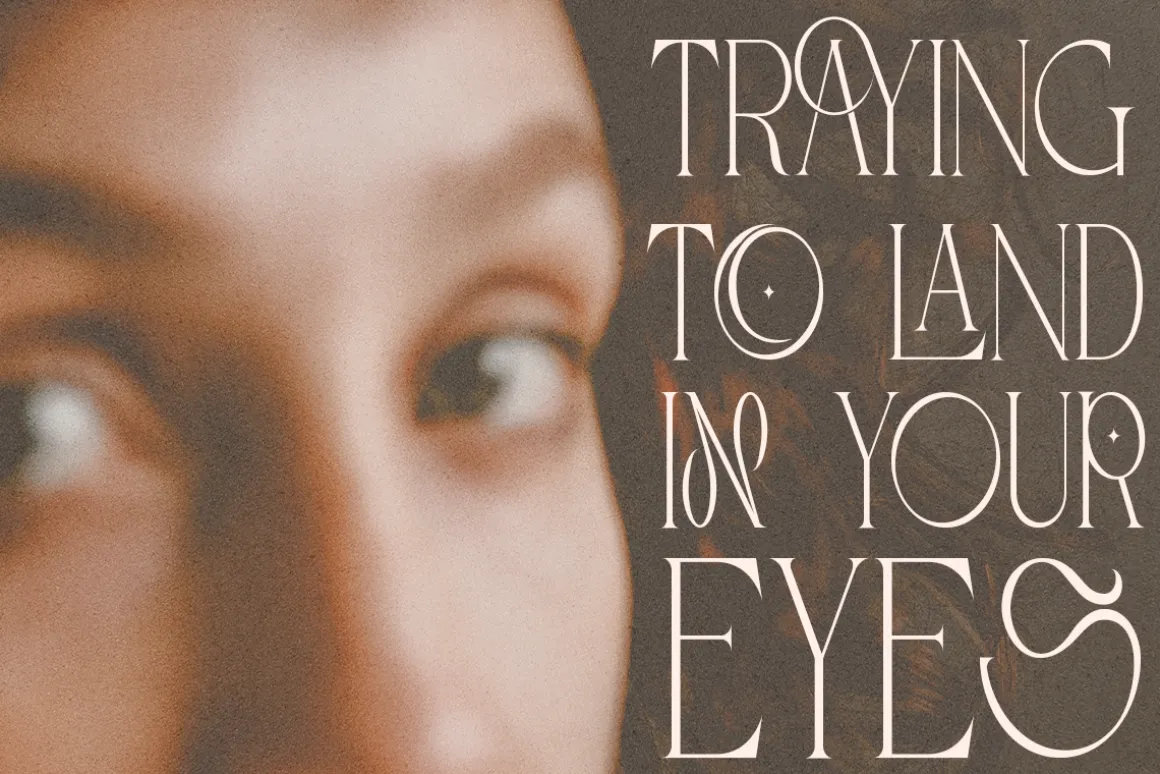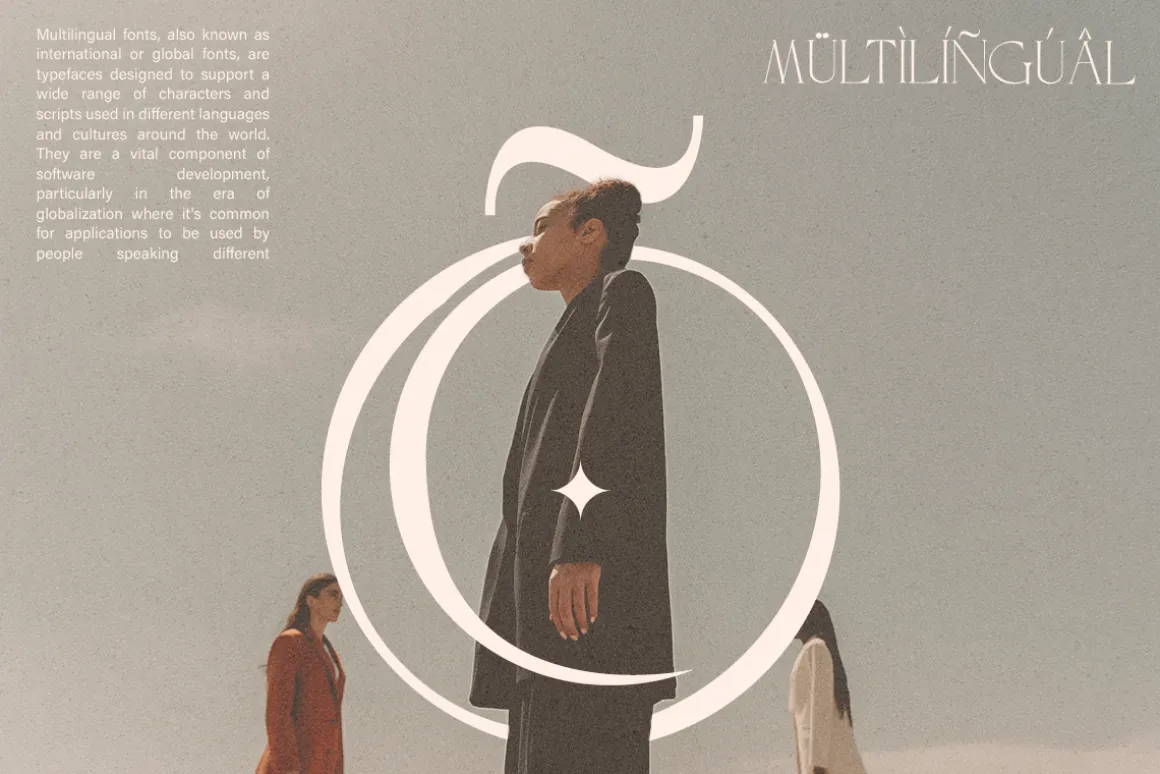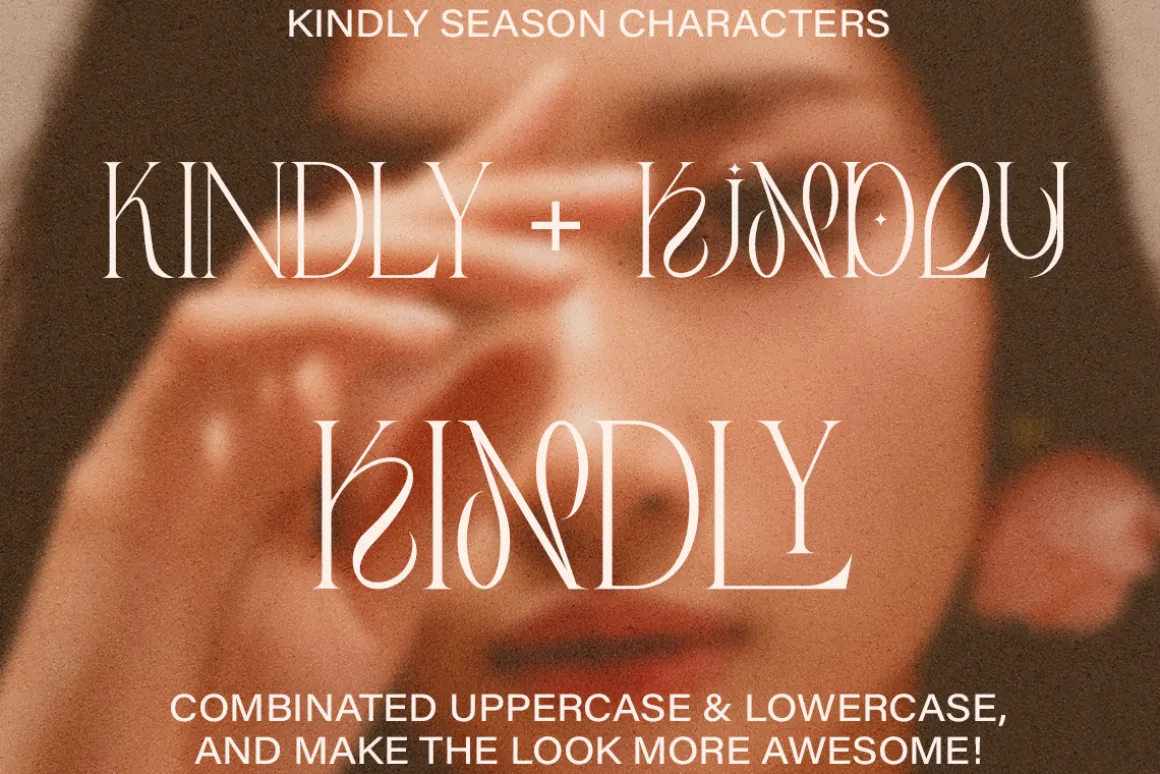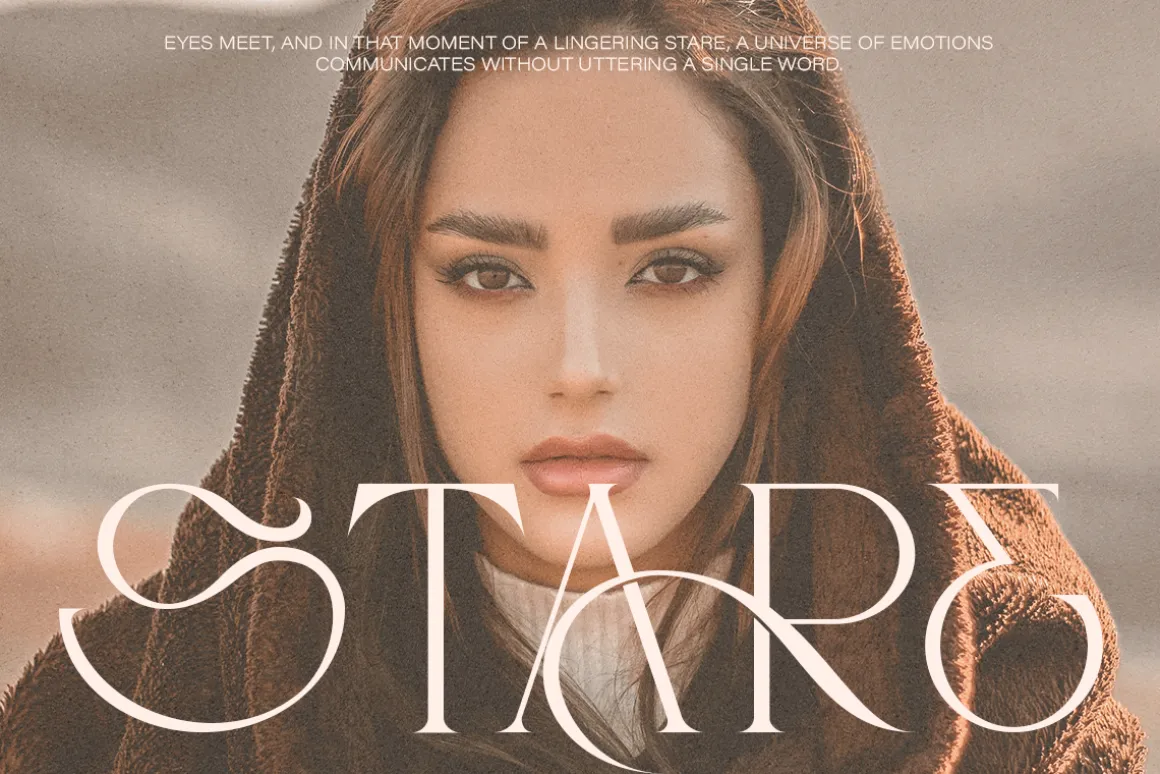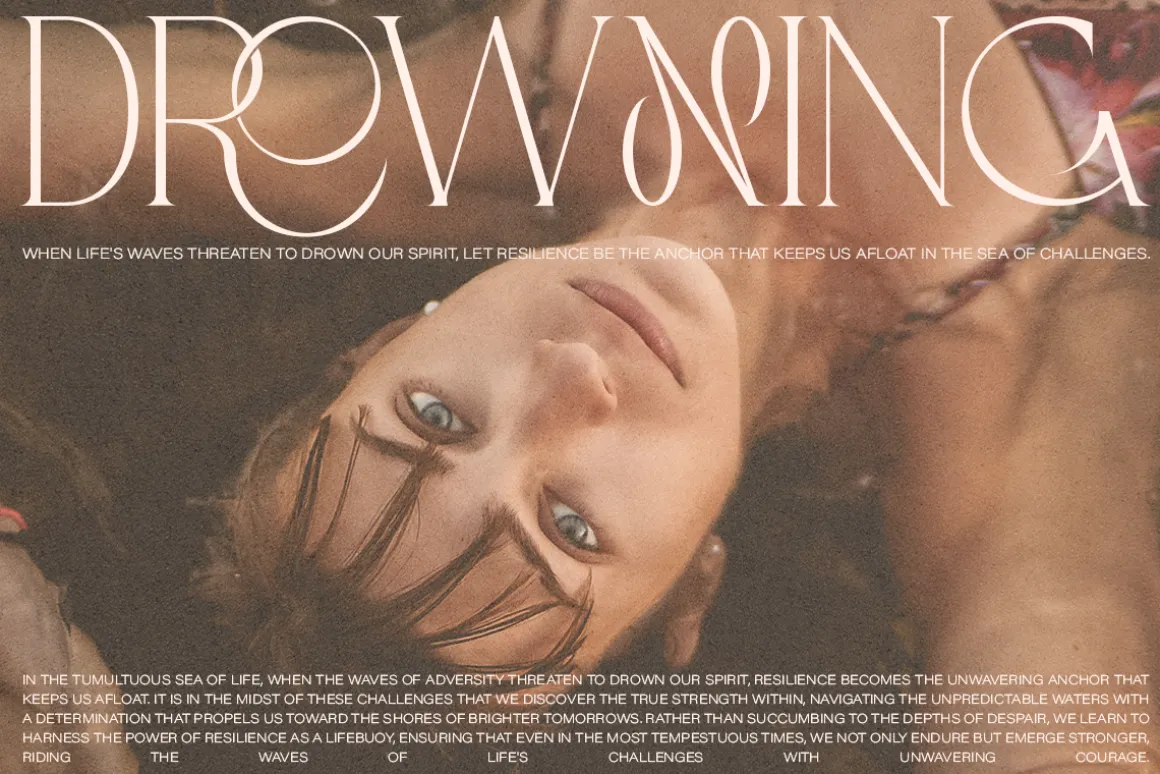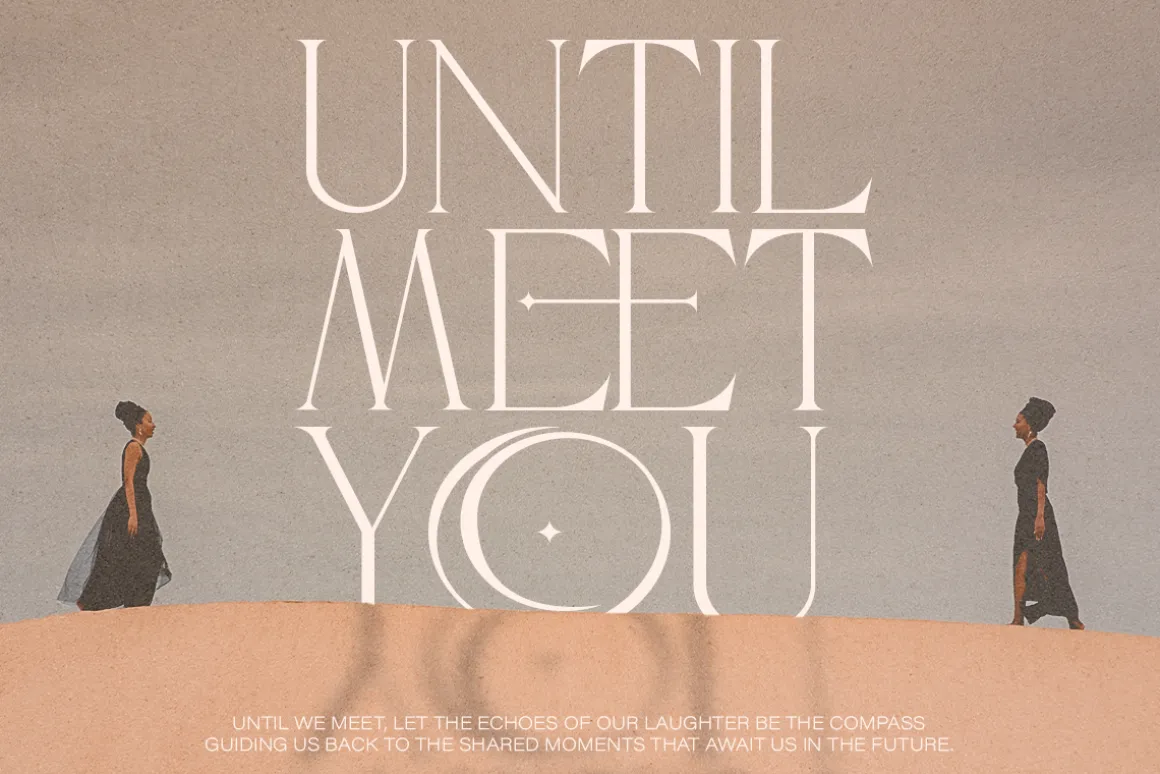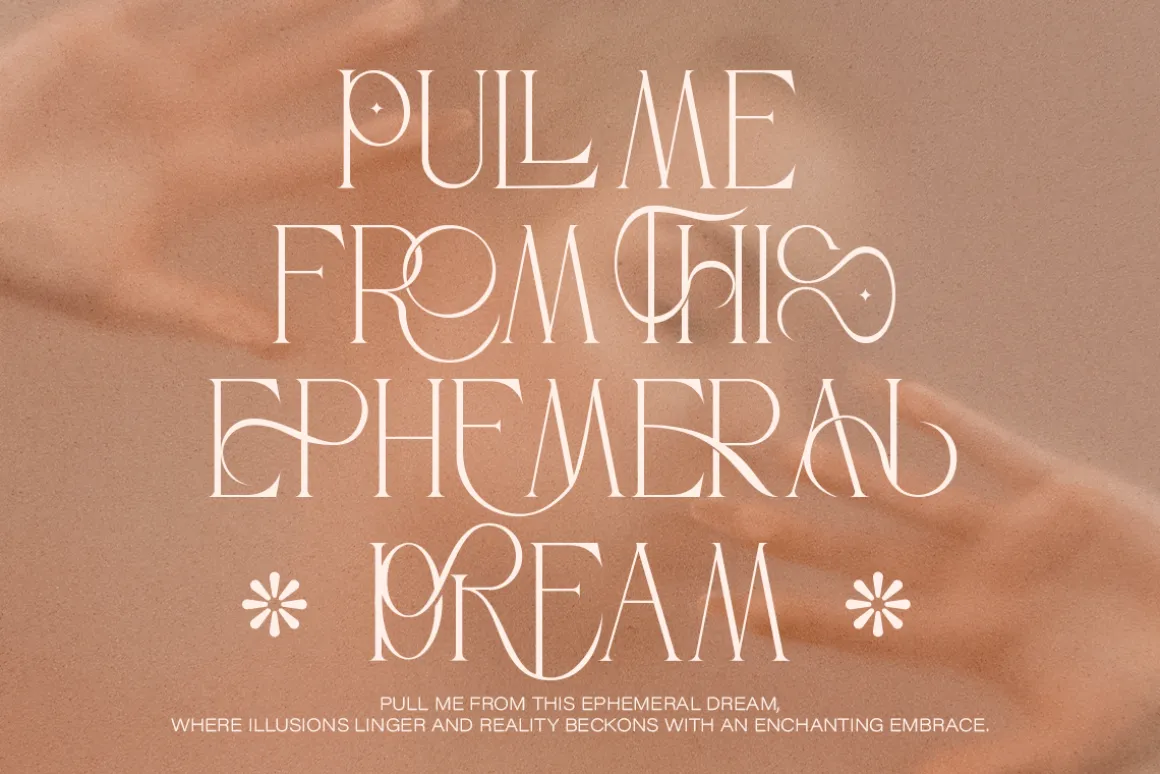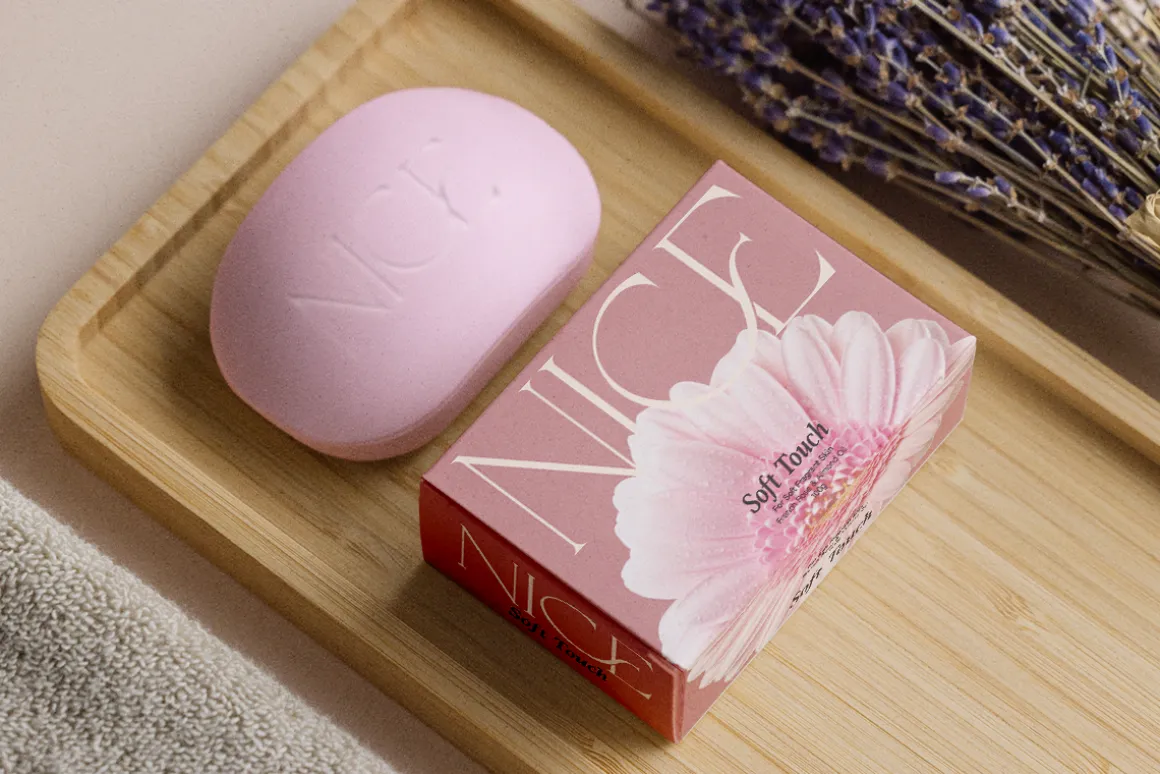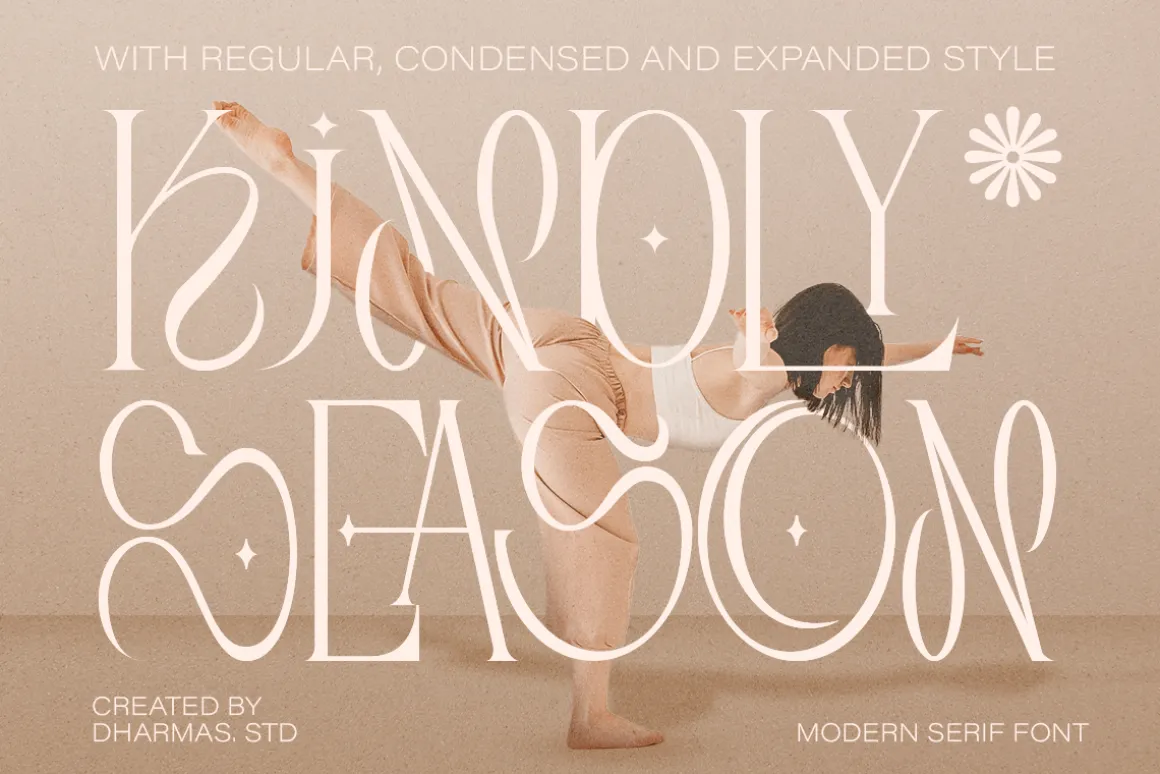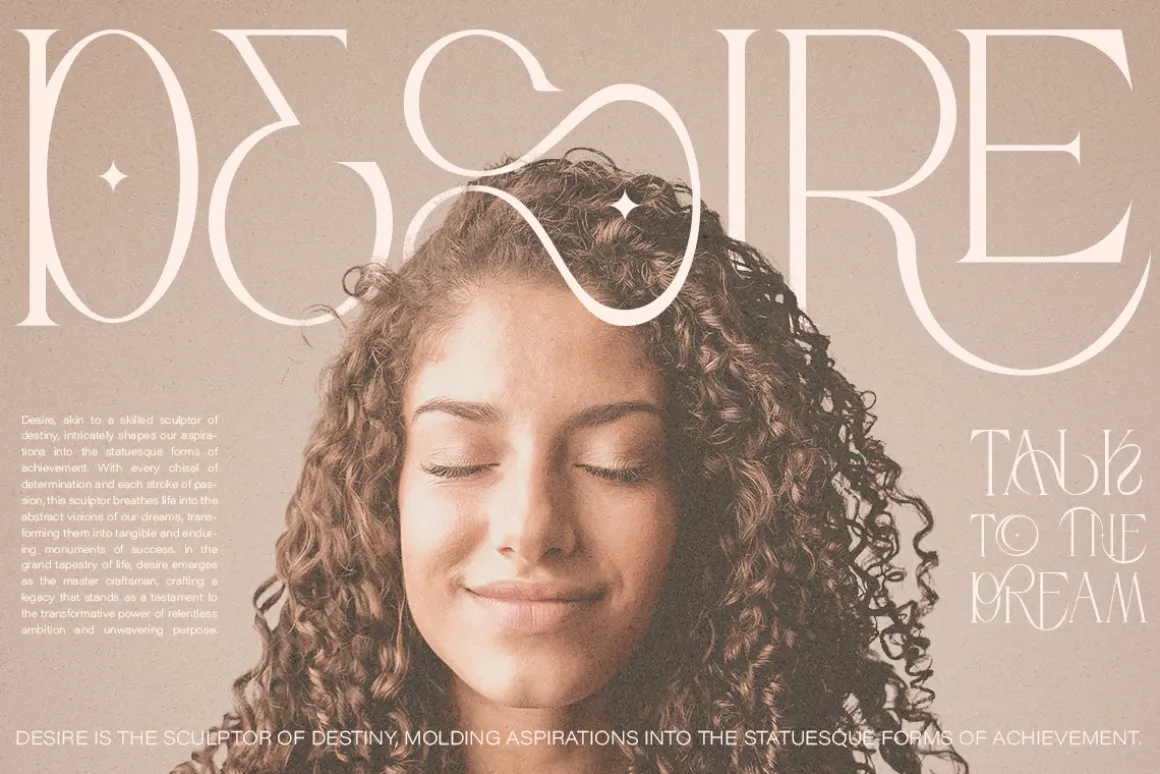
Present to you for New Modern Decorative Serif, Kindly Season!
Kindly Season has a lowercase that is a unique uppercase letter, You can easily correct this by replacing the alternate letters with uppercase. It’s very simple, isn’t it?
Comes in 3 versions: Condensed, Regular, and Expanded, with a whopping total of 60+ unique ligatures, it’s easy to achieve custom typography for stunning logos, headlines, and quotes.
Kindly Season has a unique ‘S’ that is perfect for headers in projects; it can even be used for logos. Additionally, Kindly Season features other cool, decorative-style letters that add a touch of creativity. Type in all lowercase in the type tester to try it out!